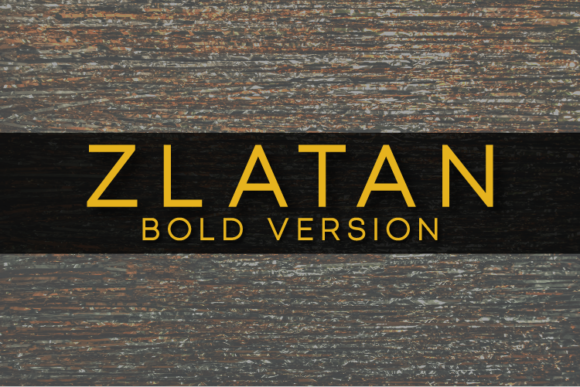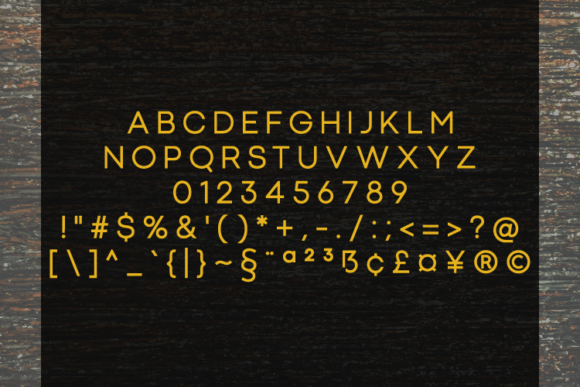
Zlatan Bold Font
About Zlatan Bold Font
Zlatan merges well-balanced lines and clear structures into one truly timeless sans serif. It’s suitable for corporate purposes, beautiful logos, as well as text in any size!